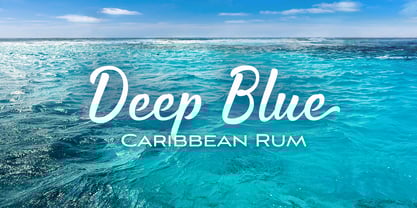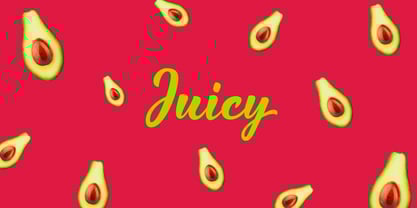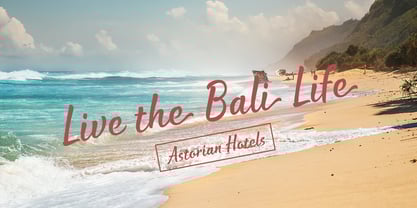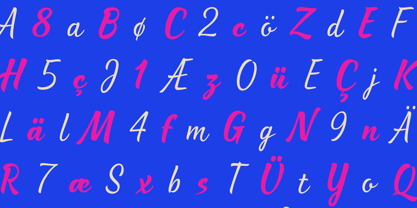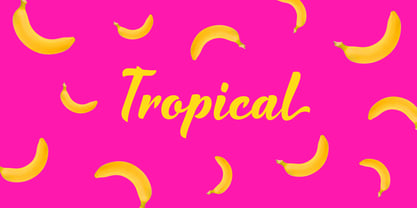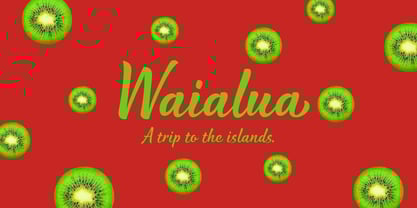
Waialua Font
This Waialua Font is perfect for tropical resort branding, Hawaiian cultural materials, surf shop signage, beachfront restaurant menus, island tourism promotions, Pacific vacation packages, coastal lifestyle brands, ocean adventure companies, tropical hospitality communications, and authentic Polynesian business applications.
What makes this Waialua Font exciting is its tropical authenticity that captures the serene beauty and island spirit of Hawaiian coastal paradise and Pacific cultural heritage. The font features flowing letterforms with oceanic characteristics that convey island tranquility, tropical warmth, and coastal serenity. Its Hawaiian character and island-inspired design make it ideal for brands seeking to communicate tropical excellence, island authenticity, and Pacific hospitality in tourism and coastal lifestyle markets.
The Waialua Font family includes light, regular, medium, and bold weights with tropical alternates, island variants, and oceanic flourishes. This comprehensive tropical font family provides designers with authentic typographic tools to create island compositions while maintaining the Hawaiian character essential for Pacific tourism and coastal brand communications.
Hawaiian resorts and tropical businesses consistently choose Waialua Font Free Download for projects requiring authentic island appeal and Pacific cultural credibility. This font's distinctive tropical character perfectly captures the Hawaiian excellence and coastal beauty that resonate with audiences who appreciate island culture, tropical experiences, and brands that embody authentic Pacific hospitality and island serenity.
The serene construction of Waialua Font showcases beautifully designed letterforms with island proportions that ensure exceptional tropical appeal across all coastal applications. Its oceanic appearance and Hawaiian character create memorable impressions while maintaining the readability necessary for effective island communication and tropical tourism materials.
Professional designers appreciate how Waialua Font brings immediate Hawaiian authenticity and tropical elegance to brand communications. The font's island nature allows organizations to communicate Pacific excellence and coastal beauty while maintaining the professional quality necessary for effective positioning in tropical tourism and Hawaiian hospitality markets.
The peaceful appeal of Waialua Font makes it particularly effective for brands emphasizing island culture, tropical serenity, and Hawaiian authenticity. Its coastal character resonates strongly with audiences who appreciate Pacific traditions, tropical landscapes, and brands that represent the tranquil beauty and authentic spirit of Hawaiian island life.
Whether developing branding for Hawaiian resorts or creating materials for tropical lifestyle brands, Waialua Font Free Download provides the authentic typographic foundation that island brands need to communicate their Hawaiian excellence, tropical beauty, and the serene hospitality that defines Pacific island culture and coastal paradise achievement.